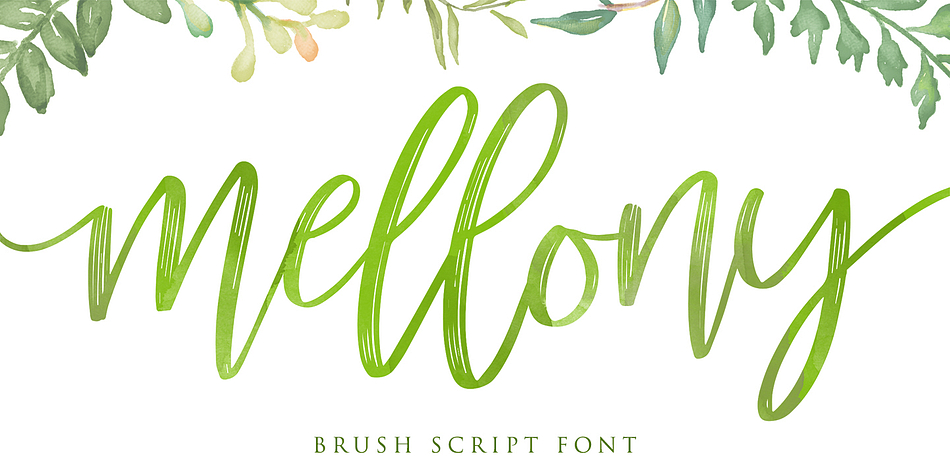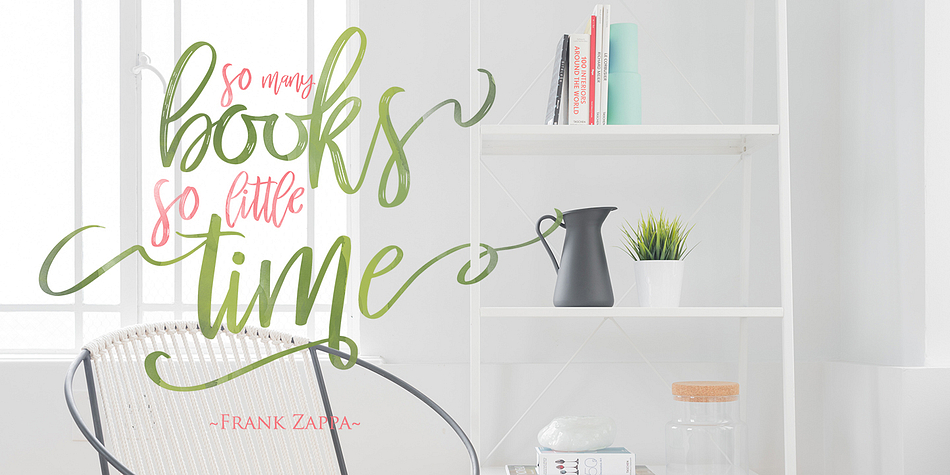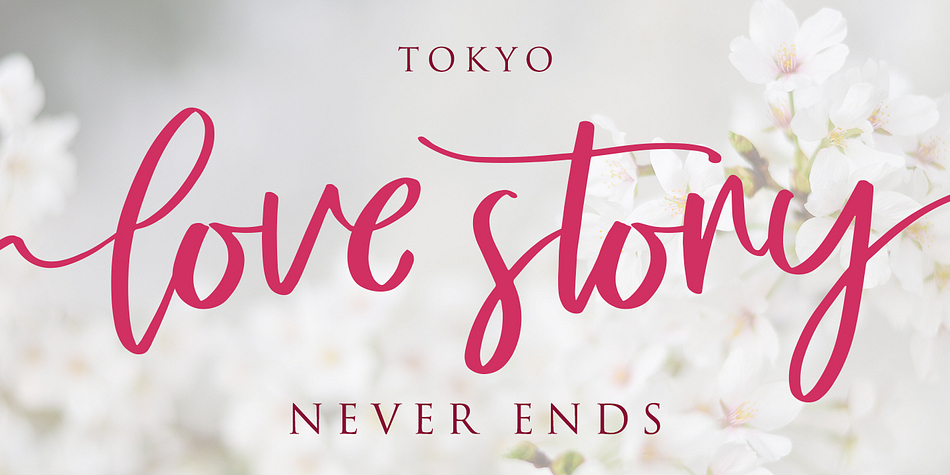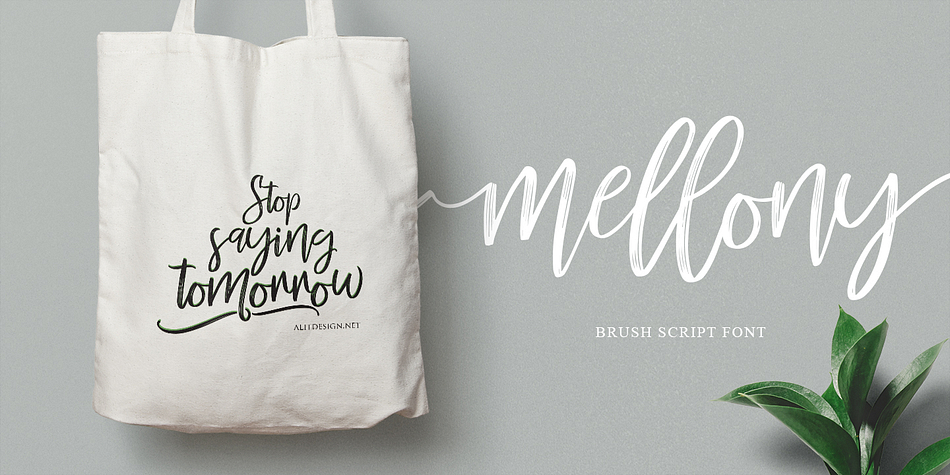
Mellony is a modern calligraphy font family. This typeface has four styles and was published by alitdesign.
Introducing Mellony brush script font which has an elegant hand lettering brush style. This font is best used for your design project that has the concept of fun, girly, romantic and elegant. Can also be applied to the design of a logotype, header website, wedding logo, romantic design, make some lettering a quote, t-shirt design etc. Mellony family font has two font styles are similar but a different character, namely is Mellony regular and Mellony dry brush. Mellony family deserve to be one of your fonts collections because it is unique, elegant and has many options of alternative glyphs for your fresh designs.
Foundry | Alit Design |
Style | Modern Calligraphy |